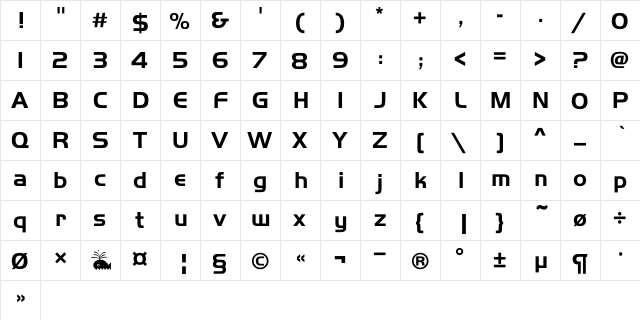
HarRierC Bold Font Preview
HarRierC Bold
Design Context for HarRierC Typeface
HarRierC offers clean, dependable letterforms without strong stylistic allegiance, making it a practical choice for designers who need flexibility. The heavy weight commands attention and anchors typographic hierarchies.